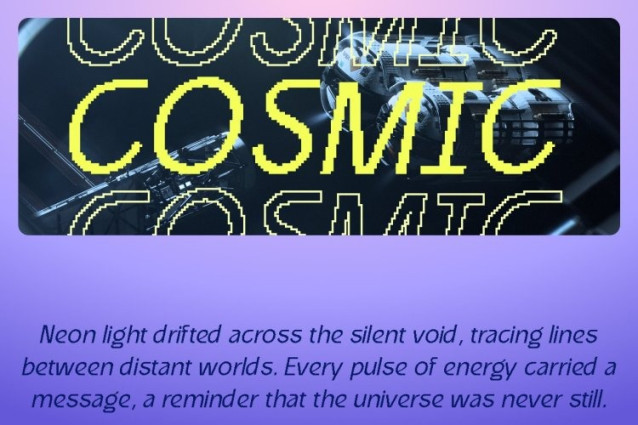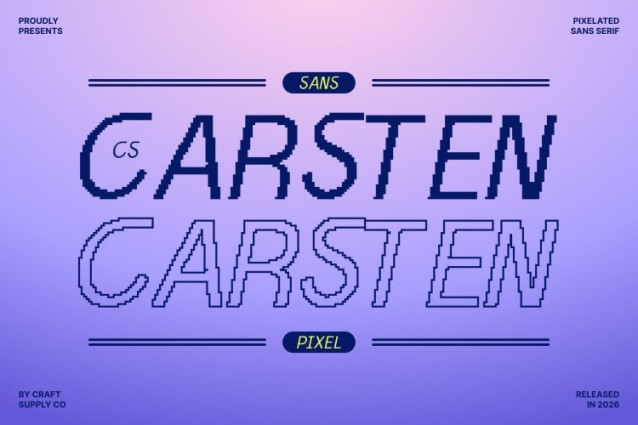
CS Carsten Pixel Font
CS Carsten Pixel Font This is a modern sans serif font built on a hybrid design concept that blends minimalist structure, subtle experimentation, and professional clarity. Its letterforms move effortlessly between clean tradition and contemporary expression, creating a typeface that feels calm, confident, and approachable.
Modern Details with Minimalist Control
At its core, this font is defined by balance. Clean strokes, precise spacing, and well-controlled proportions establish a minimalist foundation, while carefully placed modern details add personality and freshness. These nuances keep the font visually engaging without sacrificing readability or structure.
Pixel Influence for Digital Character
The pixel treatment introduces a subtle digital texture that enhances its modern identity. This pixel style gives this font an eye-catching appearance, perfect for screen-based design and visuals inspired by classic digital interfaces or early technology. The result is a refined sans serif that feels both modern and nostalgically digital.
Perfect for Branding, Editorial, and Digital Design
Ideal for branding, modern editorials, websites, UI design, and digital identities, this font excels in projects that require clarity with character. Its hybrid construction and pixel detail make it especially suitable for modern companies, creative studios, tech branding, and digital-first design systems that want to look professional, stylish, and visually distinctive.